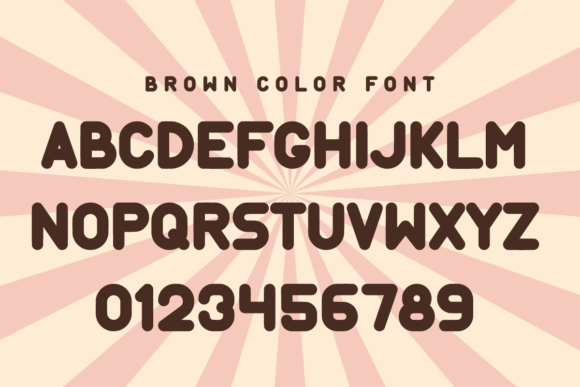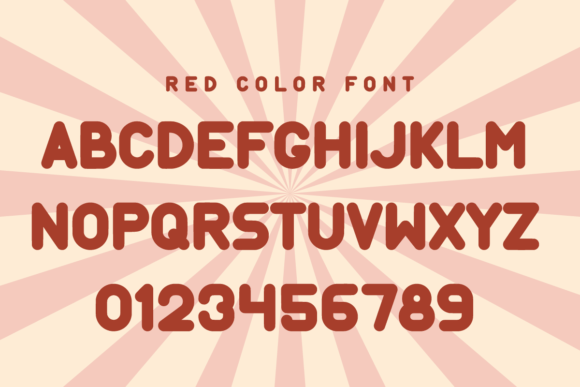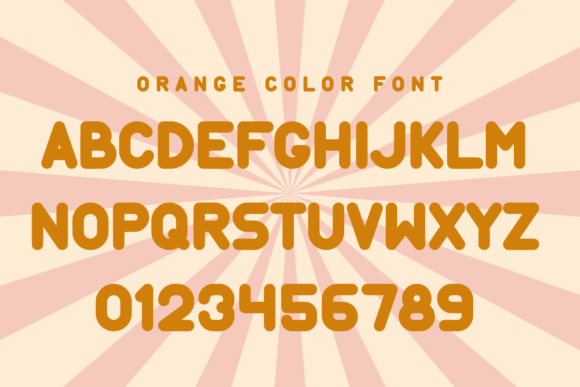
Introduction to Orter Font
Remember that moment when you stumbled upon the perfect font that elevated your entire design project? For designers, that ‘aha’ moment is priceless. And, for those who love to create unique and eye-catching designs, the Orter Font is sure to become that game-changing discovery.
With its fun, retro style, the Orter Font is an excellent addition to any creative project. Whether you’re working on a printing project, crafting stickers, designing book covers, or creating logos, this versatile font is sure to add a touch of personality to your work. Its transparent background makes it perfect for designers who want to add an extra layer of depth to their designs.
Key Features of Orter Font
- High-quality, professional design suitable for various creative projects, including logos, brochures, and presentations.
- Comes with a transparent background, allowing for easy integration into any design without visual clutter.
- Designed with a high resolution (up to 300 DPI), ensuring crisp and clear visuals in printed materials.
- Perfect for designers looking for a unique and stylish font to elevate their creative project.
- Supports multiple languages, making it an excellent choice for international design projects.
Honest Review: Orter Font
As a designer, I’m always on the lookout for high-quality design resources that can elevate my creative projects. Recently, I stumbled upon the Orter Font, and I’m excited to share my honest review.
What works well: ✨ The Orter Font is incredibly versatile and can be used for a wide range of creative projects, from branding and logos to digital products and presentations. Its clean and modern design makes it perfect for anyone looking to add a touch of sophistication to their work. I also appreciate the transparent background option, which allows for seamless integration with any design.
- High-quality design: The font is well-designed and visually appealing, making it a great addition to any design project.
Limitations: ⚠️ While the Orter Font is an excellent resource, I did find it to be limited in terms of customization options. Additionally, the font may not be suitable for all types of projects, particularly those that require a more unique or bold design.
Overall impression: I’m impressed with the Orter Font and would highly recommend it to fellow designers. Its versatility, high-quality design, and free download make it an excellent resource for any creative project. While it may have some limitations, I believe it’s a valuable addition to any design library.
Tips for Getting the Most Out of Orter Font
One of the key features of the Orter Font is its transparent background, which makes it easy to use on any design background. To get the most out of Orter Font, try using it in combination with other design elements, such as images and shapes, to create a unique and eye-catching design effect.
The Orter Font is a versatile design resource that can be used for a variety of creative projects, including logos, business cards, and social media graphics. Its high-quality design and transparent background make it a great choice for designers who want to create professional-looking designs quickly and easily.
Q: Is the Orter Font suitable for use in high-resolution designs?
Yes, the Orter Font is designed to be highly legible at various font sizes and resolutions, making it suitable for use in high-resolution designs, including those with high pixel densities. This ensures that your designs will look crisp and clear, even when viewed at close range.